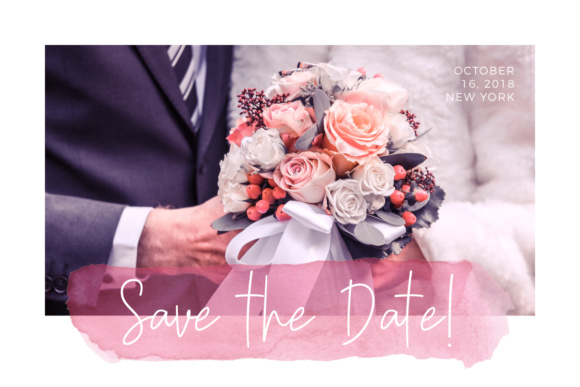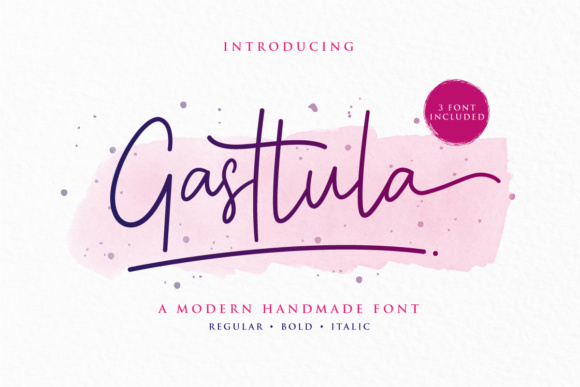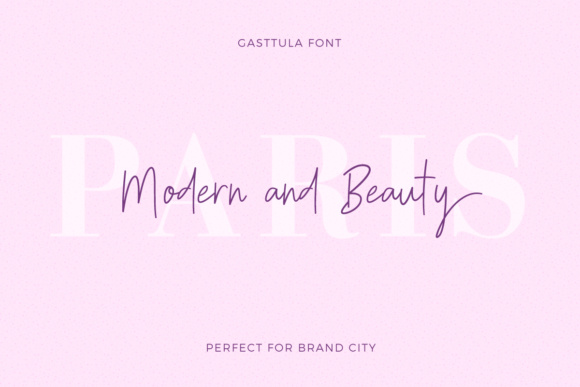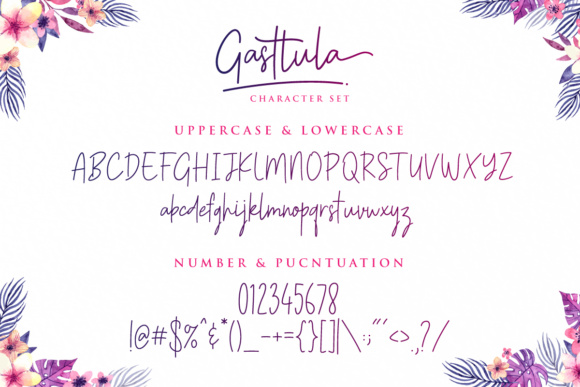
Gasttula Font
About Gasttula Font
Gasttula is a beautiful and modern handmade font, perfect for use in a wide range of fashionable and current designs. This font is a great way to give your designs a hand-lettered feel easily, and looks great in fashion oriented projects.